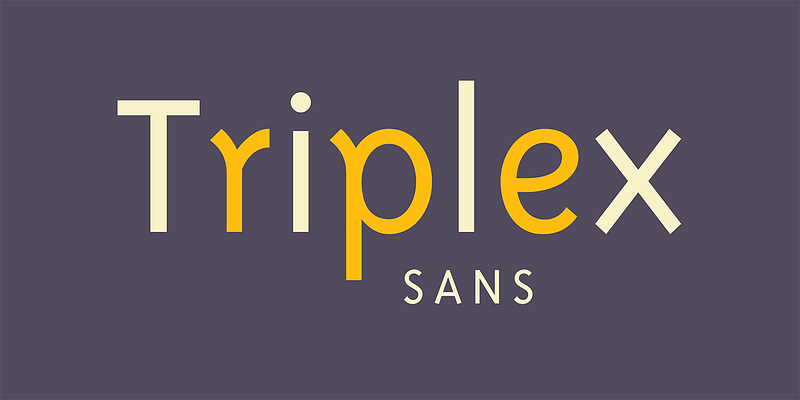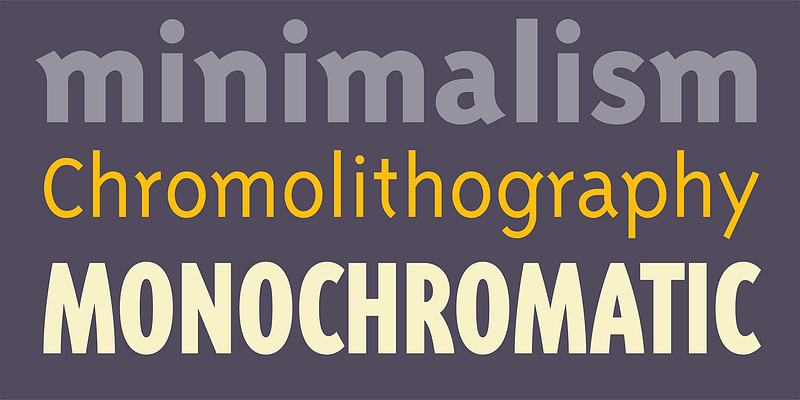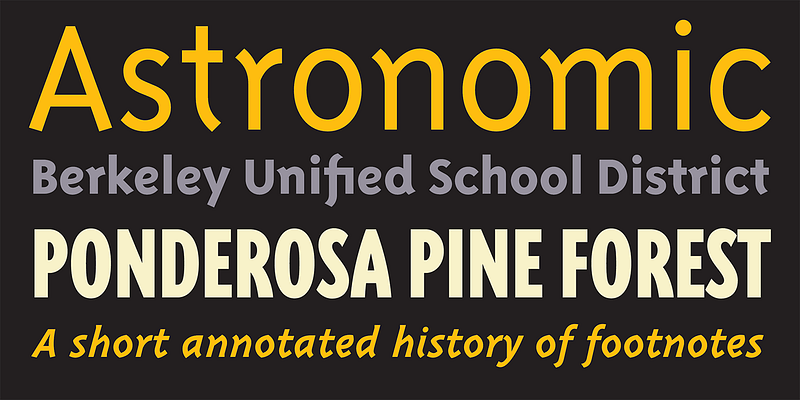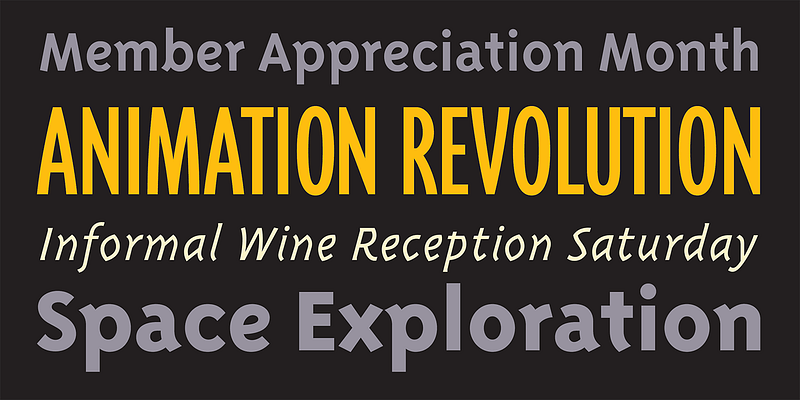
Although initially designed as a rational/geometric font, Triplex developed into one of Licko’s most intuitive typeface designs at the time of its release in 1989. Its roots, like many of Licko’s fonts during that period, can be traced back to her bitmap typeface designs which often functioned as the skeletons from which she developed her more expressive designs. Triplex’s origin can be found in the proportions of Lo-Res Twelve, a bitmap screen font, which morphed into Citizen, made of straight line segments, which then led to the design of Triplex.
Triplex was intended as a less rigid and friendlier substitute for Helvetica, and its first extensive use was in Emigre magazine #14, a special issue devoted to Swiss designers.
The name Triplex refers to the three versions that make up the entire family: Triplex, Triplex Serif and Triplex Italic. Each version of the typeface comes in light, bold and extra bold. The italic was designed and drawn by type designer and sign painter John Downer, and was designed to work with both the serif and sans serif versions.
The drawings, for what is now Triplex Italic, were done in Iowa City in 1985 by John Downer. The italic was originally conceived as a companion for another typeface being drawn at the same time called Arcatext, which (like Triplex) could be described as a “humanist sans serif” having simplified character shapes constructed mostly of geometric parts.
At one stage, a certain customer was interested in Arcatext but wanted a different italic drawn for it, so the plan for the italic took another direction and the idea for this one was dropped. Five years later, Emigre decided to commission the abandoned italic as a digital typeface in three weights as companions to the Triplex Sans and Serif families designed by Zuzana Licko in 1989.
The ascenders and descenders have been shortened to match those of Triplex and the new capitals embody more of the features that distinguish the lower case, but otherwise the digital version closely follows the original drawings.